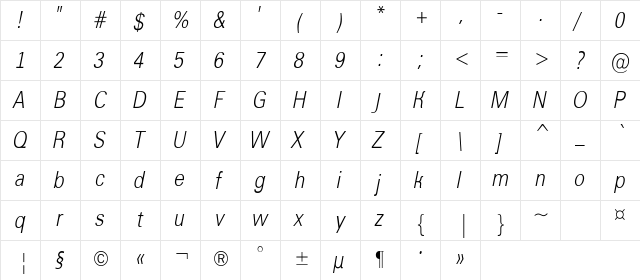
a_GroticLtNr Italic
Design Context for a_GroticLtNr Typeface
a_GroticLtNr offers clean, dependable letterforms without strong stylistic allegiance, making it a practical choice for designers who need flexibility. Its italic angle brings a sense of urgency and motion to the letterforms.
Pro Tip: Try a_GroticLtNr for annotation and caption copy alongside an upright companion — the contrast in angle creates a dynamic but ordered typographic system.